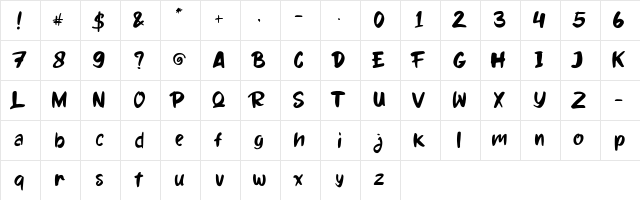
Juice Day Regular Free Font
Juice Day Regular
Foundry: Degi Kurniawan
Designer: Degi Kurniawan
Design Context for Juice Day
Juice Day is a composed and adaptable typeface that performs quietly and consistently across a wide range of design contexts.